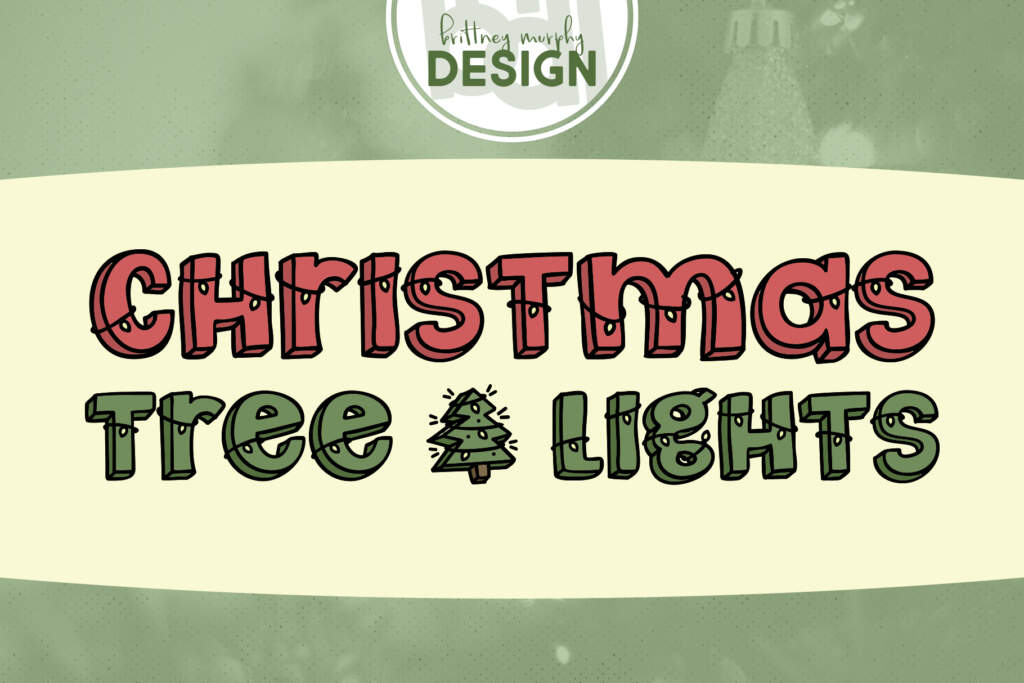
Christmas Tree Lights Font
Christmas Tree Lights Regular Letters
About the Christmas Tree Lights Font
The Christmas Tree Lights font is a festive holiday font! It incorporates Christmas tree lights on each letter to create a fun, decorative feel. Perfect for holiday cards or invitations!
A Christmas tree illustration replaces the ‘#’ character in this font, so you can use it in your graphics for some extra holiday cheer!
Christmas Tree Lights
Christmas Tree Lights- Preview Image
Christmas Tree Lights Font Character Map